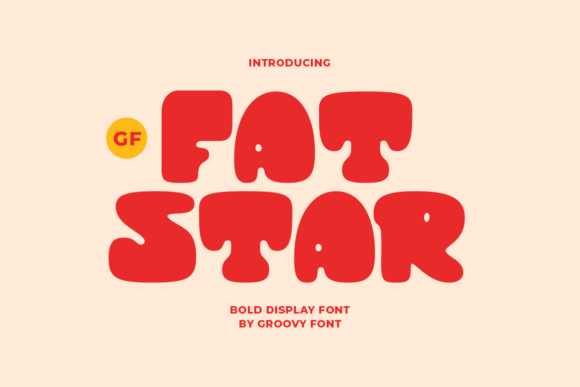
GF Fatstar Font: A Bold and Cheerful Display Font for Creative Projects
When it comes to creating visually stunning designs, the right font can make all the difference. If you’re looking for a bold and cheerful display font that can add a touch of playfulness to your creative projects, look no further than GF Fatstar. This unique font is designed to make a statement, with its striking appearance and bold design that’s sure to catch the eye.
What is GF Fatstar Font?
GF Fatstar is a bold display font that is known for its cheerful and unique appearance. With its bold and striking design, it is ideal for making a statement in creative projects that call for a strong visual impact. This font is perfect for designers who want to add a touch of playfulness and whimsy to their designs, making it perfect for projects such as posters, flyers, and social media graphics.
Key Features of GF Fatstar Font
- Bold and Striking Design: GF Fatstar font is designed to make a statement, with its bold and striking appearance that’s sure to catch the eye.
- Cheerful and Unique: This font has a cheerful and unique appearance that’s perfect for adding a touch of playfulness to your designs.
- Perfect for Display Text: GF Fatstar is ideal for display text, making it perfect for projects such as posters, flyers, and social media graphics.
- Easy to Read: Despite its bold design, GF Fatstar is easy to read, making it perfect for use in a variety of creative projects.
Uses of GF Fatstar Font
GF Fatstar is a versatile font that can be used in a variety of creative projects. Here are some of the most popular uses of this font:
- Posters and Flyers: GF Fatstar is perfect for creating eye-catching posters and flyers that require a bold and striking design.
- Social Media Graphics: This font is ideal for creating social media graphics that require a bold and cheerful design.
- Logos and Branding: GF Fatstar can be used to create unique and memorable logos and branding materials.
- Headings and Titles: This font is perfect for use as headings and titles in a variety of creative projects, including magazines, newspapers, and websites.
Benefits of Using GF Fatstar Font
There are many benefits to using GF Fatstar in your creative projects. Here are some of the most significant advantages of this font:
- Unique and Memorable: GF Fatstar is a unique and memorable font that’s sure to make your designs stand out.
- Easy to Read: Despite its bold design, GF Fatstar is easy to read, making it perfect for use in a variety of creative projects.
- Versatile: This font is versatile and can be used in a variety of creative projects, from posters and flyers to social media graphics and logos.
- Time-Saving: GF Fatstar is a pre-designed font that can save you time and effort in your design projects.
Tips for Using GF Fatstar Font
Here are some tips for using GF Fatstar in your creative projects:
- Use it Sparingly: GF Fatstar is a bold font that’s best used sparingly to make a statement.
- Pair it with Other Fonts: You can pair GF Fatstar with other fonts to create a unique and visually appealing design.
- Adjust the Size and Color: Adjust the size and color of the font to suit your needs and create a visually appealing design.
GF Fatstar is a bold and cheerful display font that’s perfect for making a statement in creative projects. With its unique and striking design, it’s sure to catch the eye and add a touch of playfulness to any design. Whether you’re creating posters, flyers, social media graphics, or logos, GF Fatstar is a versatile font that can help you achieve your design goals.
FAQs About GF Fatstar Font
- What is GF Fatstar font? GF Fatstar is a bold display font known for its cheerful and unique appearance.
- What is GF Fatstar font used for? GF Fatstar is ideal for making a statement in creative projects that call for a strong visual impact, such as posters, flyers, and social media graphics.
- Is GF Fatstar font easy to read? Yes, despite its bold design, GF Fatstar is easy to read, making it perfect for use in a variety of creative projects.